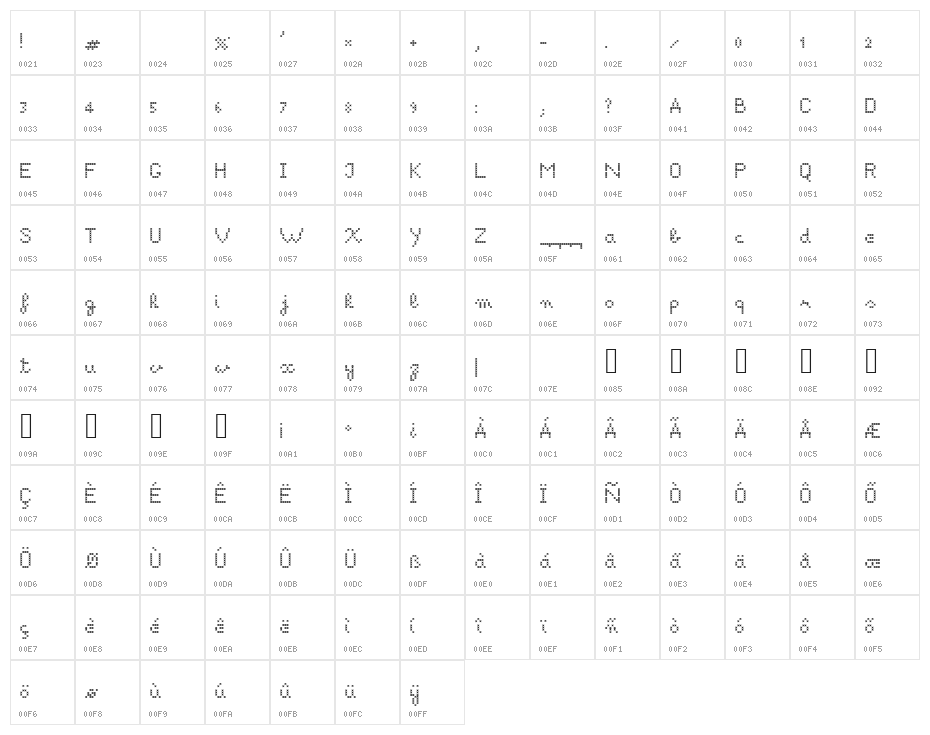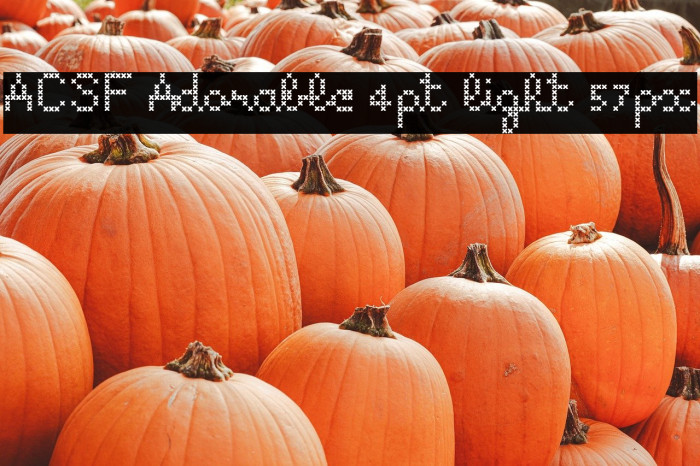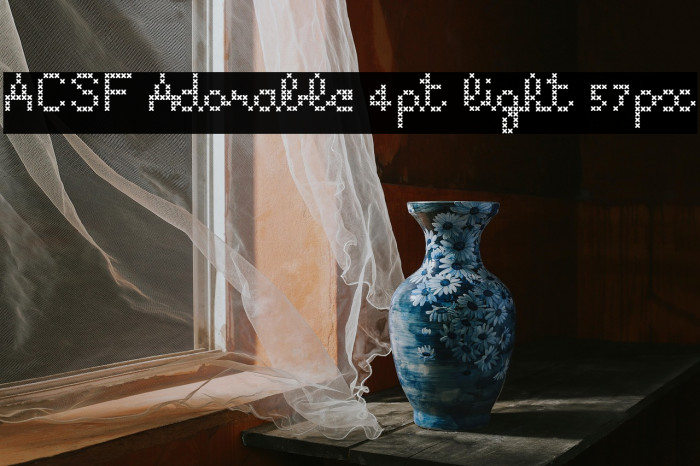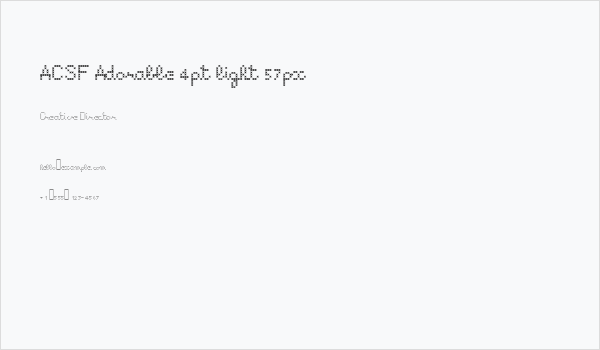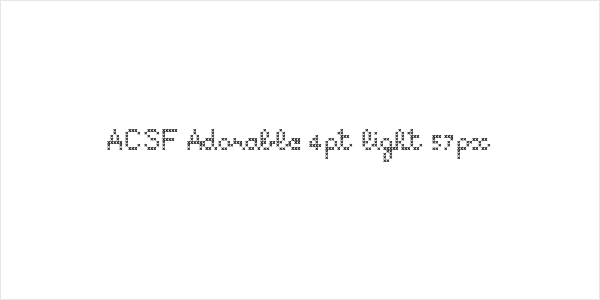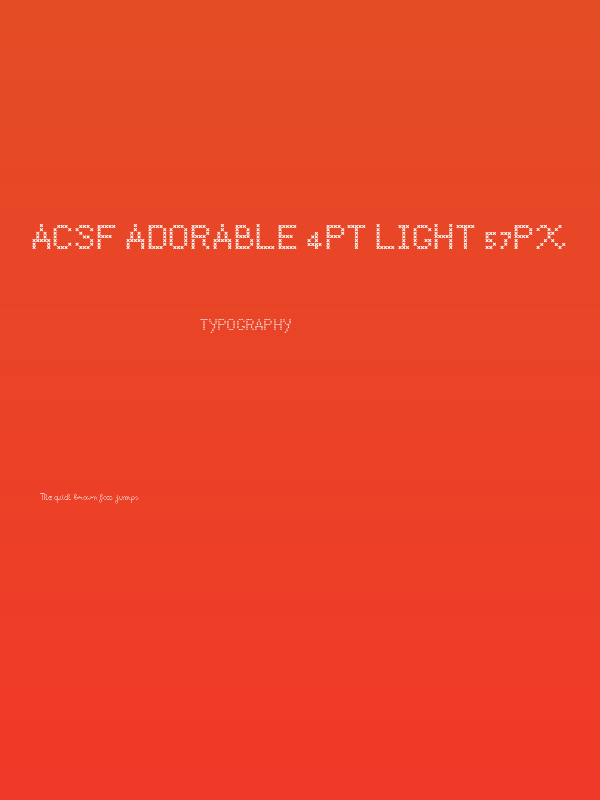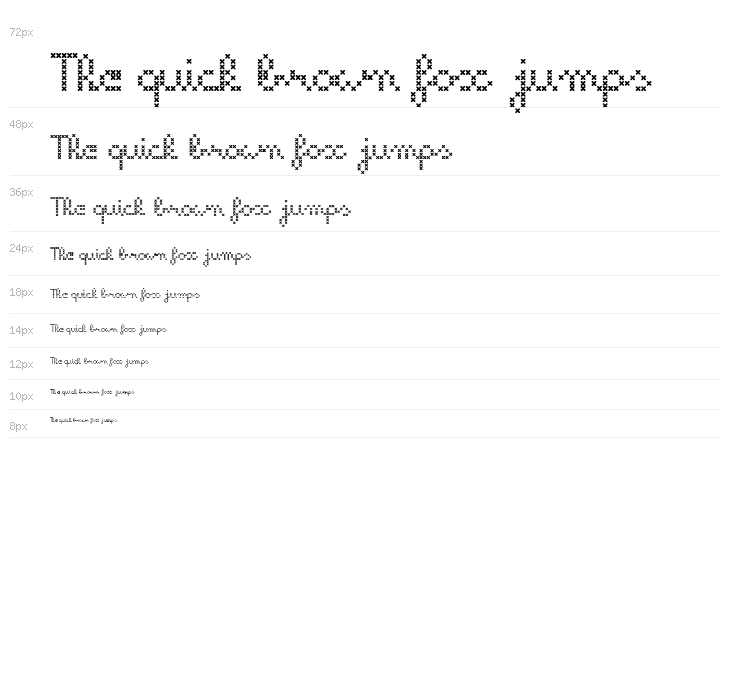
ACSF Adorable 4pt light 57px Font
ACSF Adorable 4pt light 57px Description
This font features a unique cross-stitch design, reminiscent of traditional embroidery patterns. Each character is composed of small 'x' shapes, giving it a textured and handcrafted appearance. The uppercase and lowercase letters maintain a consistent style, with a slightly playful and whimsical feel. The numbers and special characters follow the same design principle, ensuring uniformity across the font. This font is particularly suitable for projects that require a crafty or homemade aesthetic, such as DIY projects, greeting cards, or themed invitations.
| Proposed Projects | Ideal for DIY projects, greeting cards, themed invitations, and craft-related designs. |